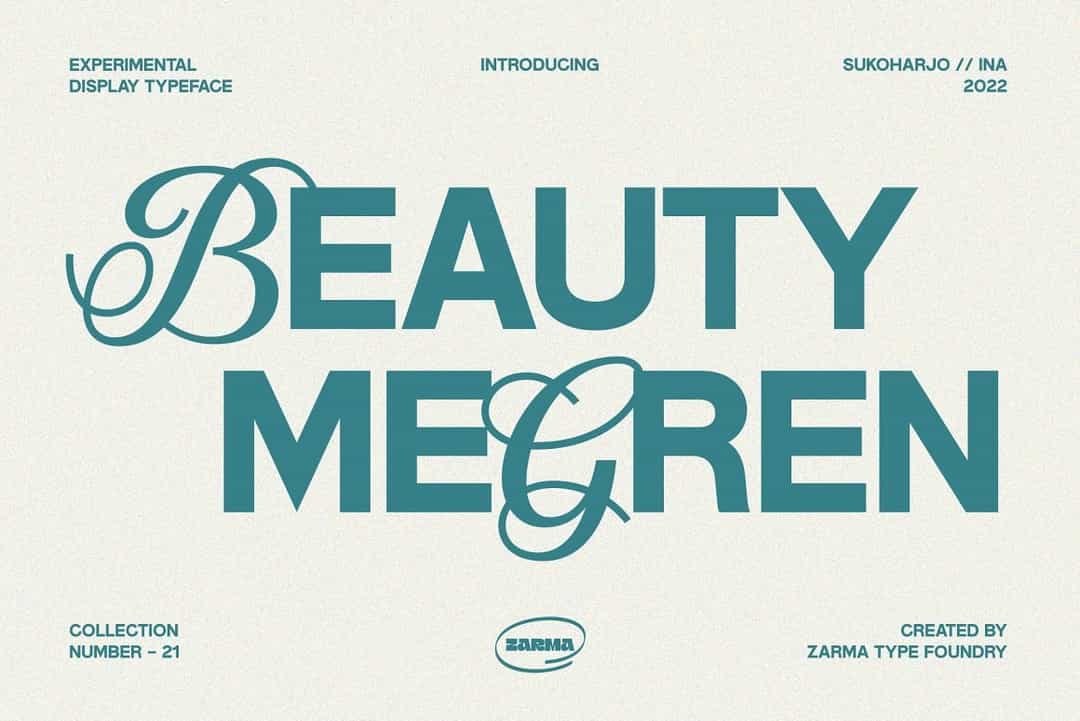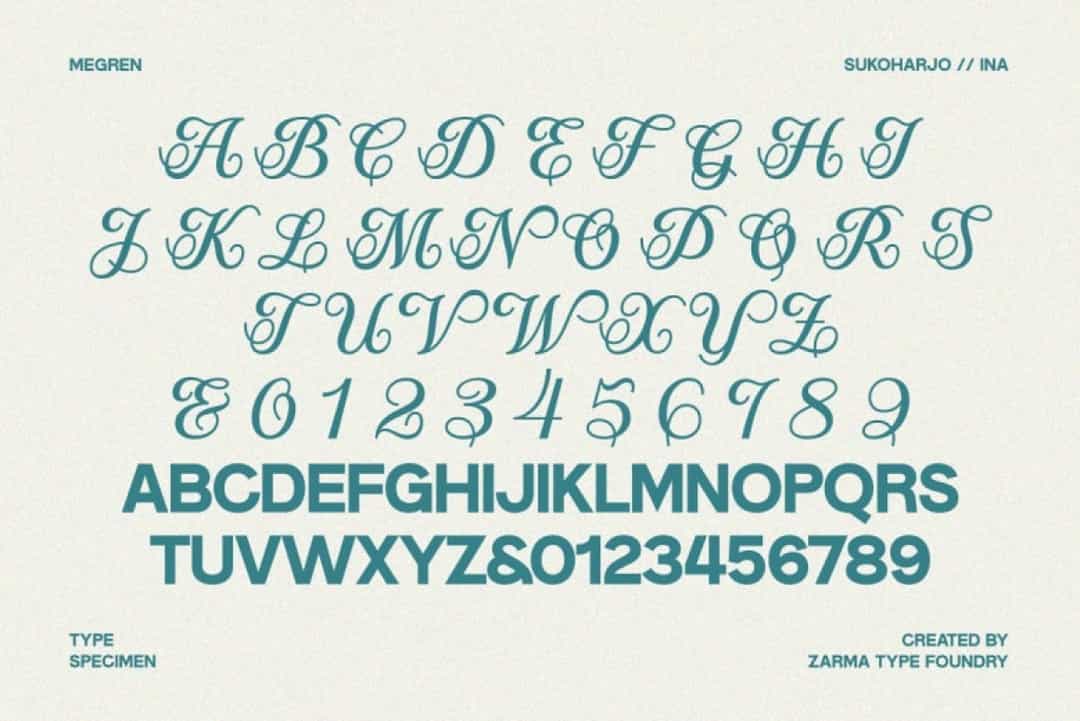
Introduce Megren – an attractive display font which blends simple sans serif typeface with an eye-catching copperplate script font. This font file features both copperplate script and sans serif as its uppercase characters, in one font file. Combining various fonts appears modern and trendy while simultaneously giving off an old school retro feeling.